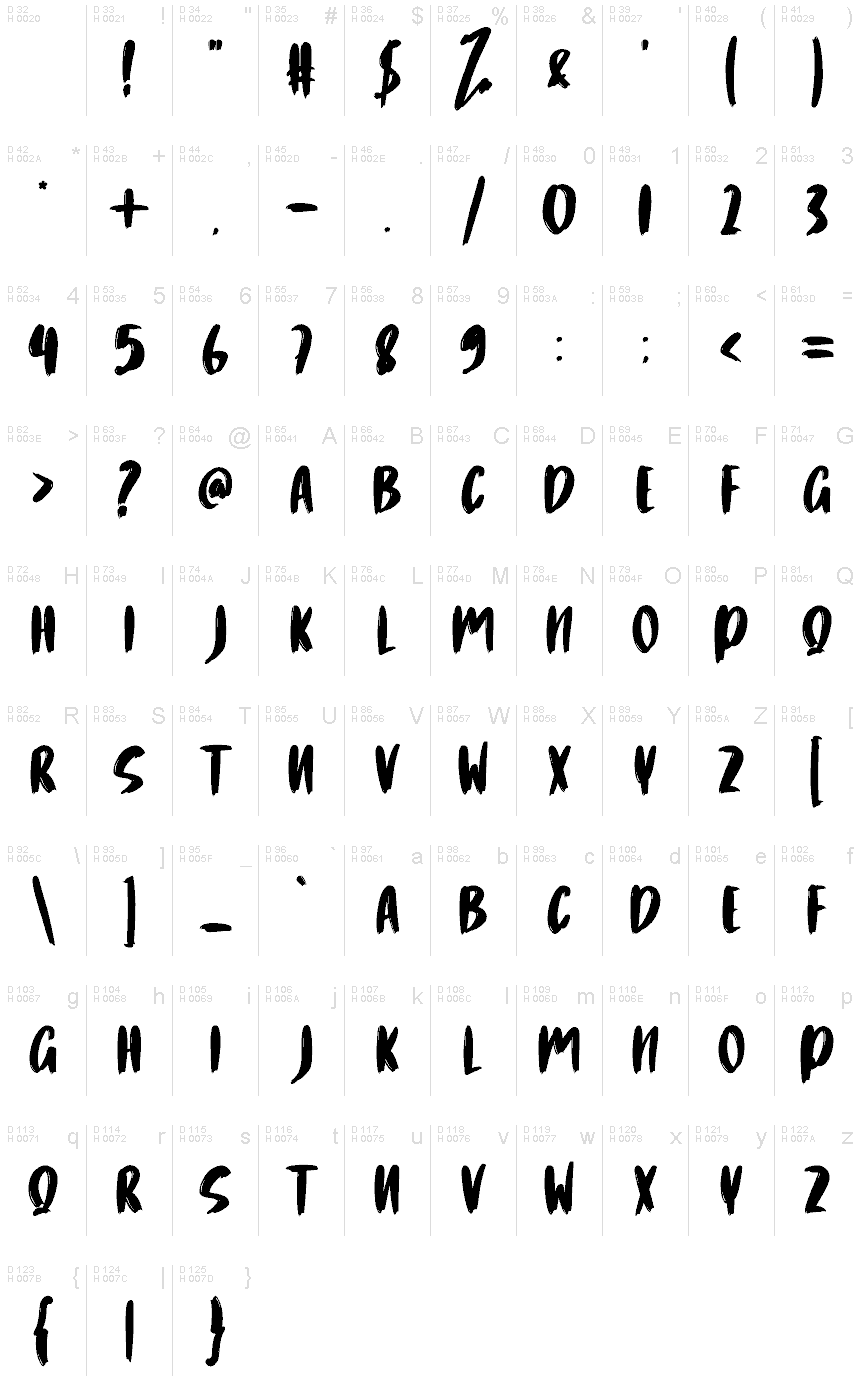
Casary
Casary font by Skiiller Studio is a bold, condensed brush typeface with a striking presence. Every element stands out due to the fusion of artistic flair and an energetic presence which grabs attention effortlessly. The writing almost appears as if it was painted with a brush as it displays similar texture variations and an aspect of irregularity. Use this one-of-a-kind font incredibly effortlessly in various contemporary applications in modern design projects.
Everyone deserves to work with a free loverly calligraphy font such as Casary created with both freedom and creativity in mind. Yet, do not limit yourself when you introduce Casary to advertising projects or to printed media applications like flyers and brochures since its eye-catching nature extends across all platforms. Use the way standalone characters are designed for logotypes that will steal the spotlight, or combine it with other parts of texts for branding designs without excluding gifts and crafts items, posters, typography artwork, wallpaper designs etc.